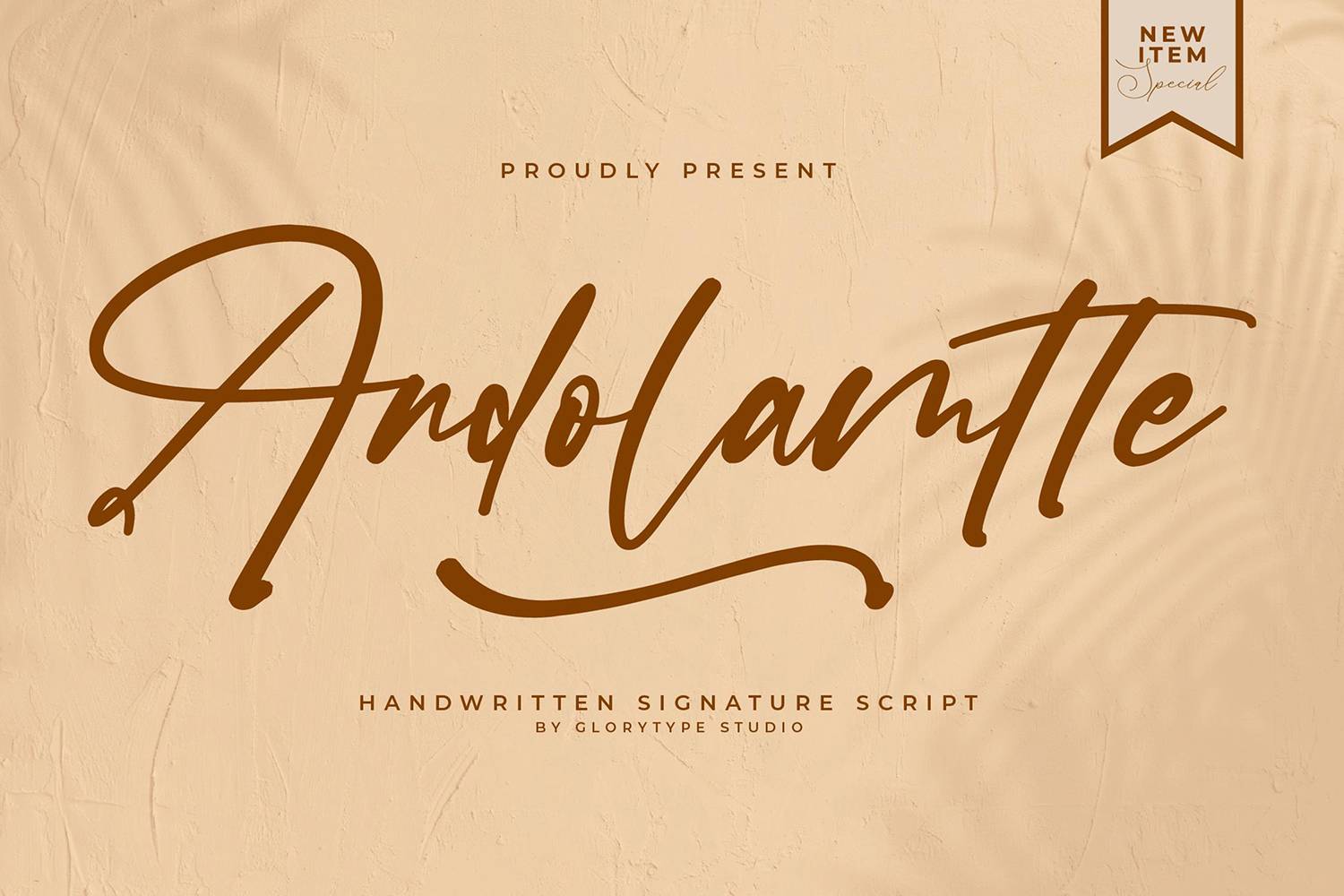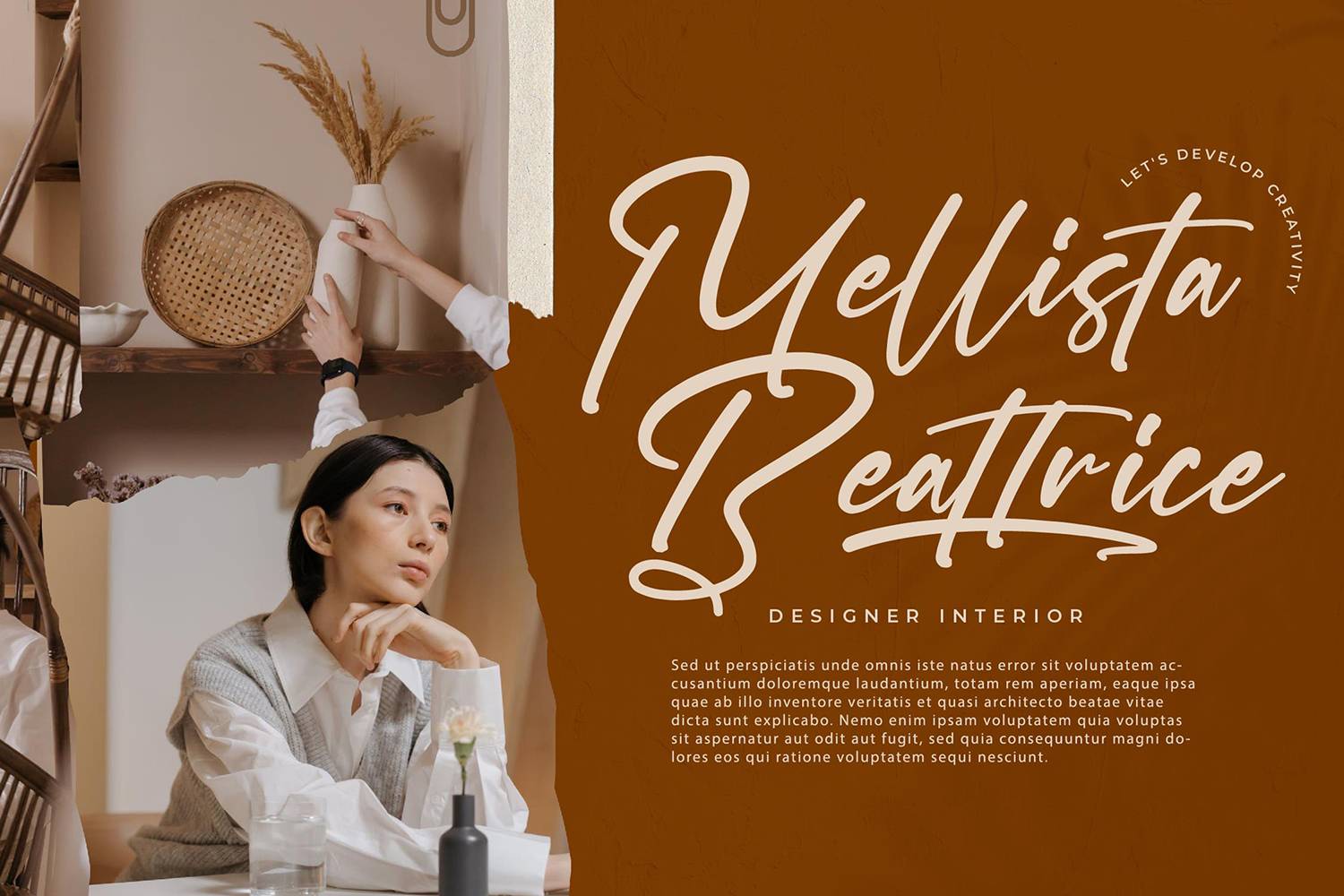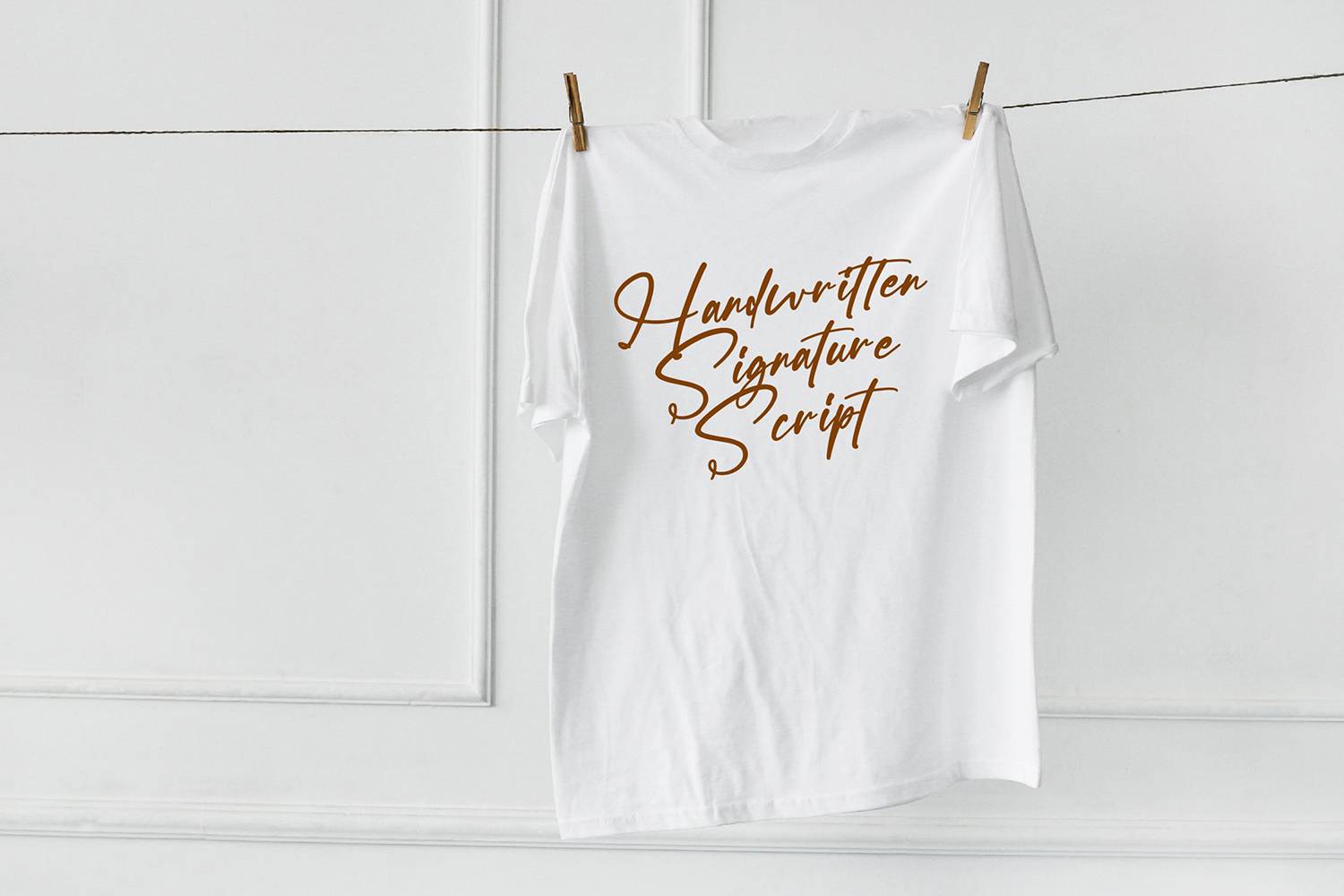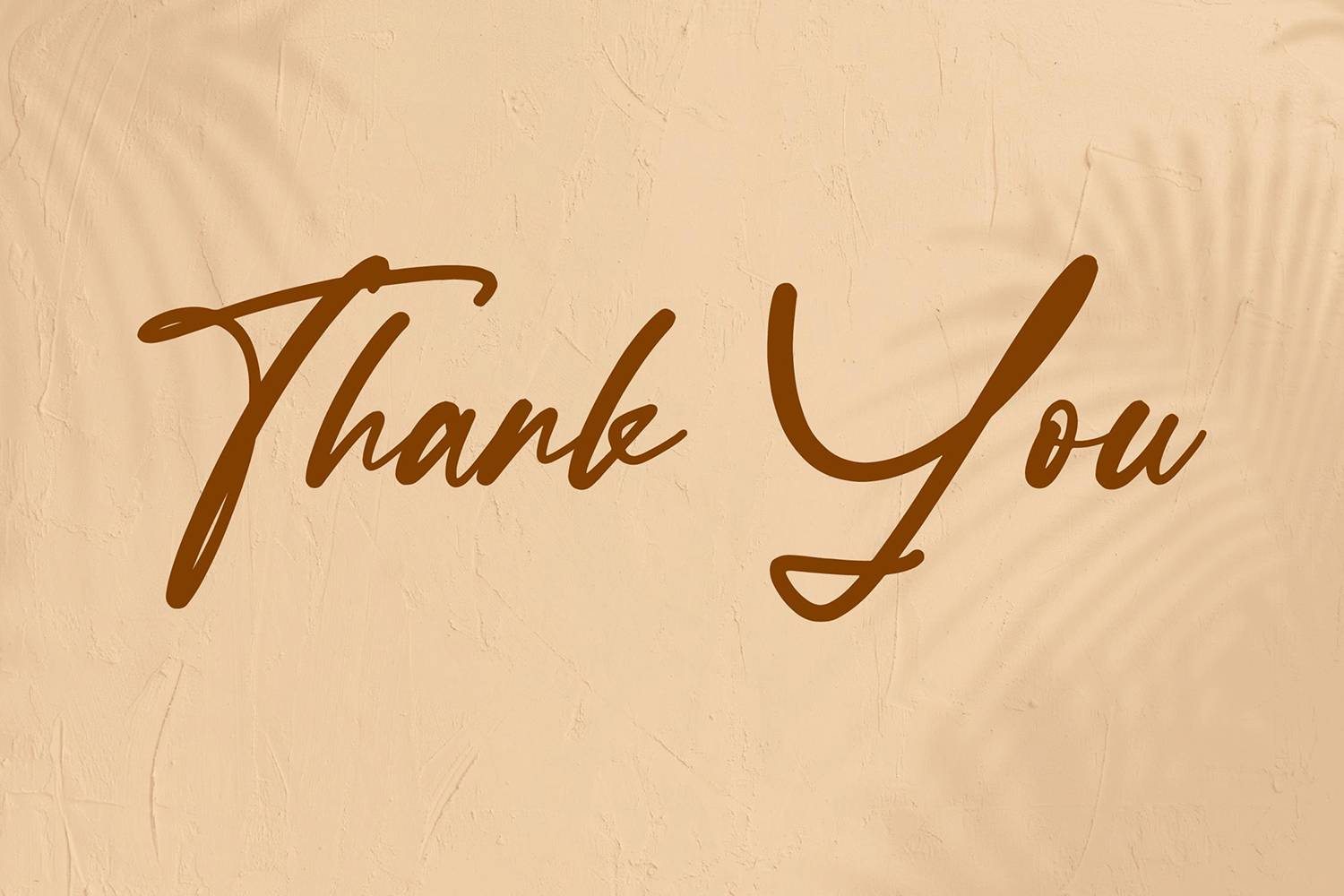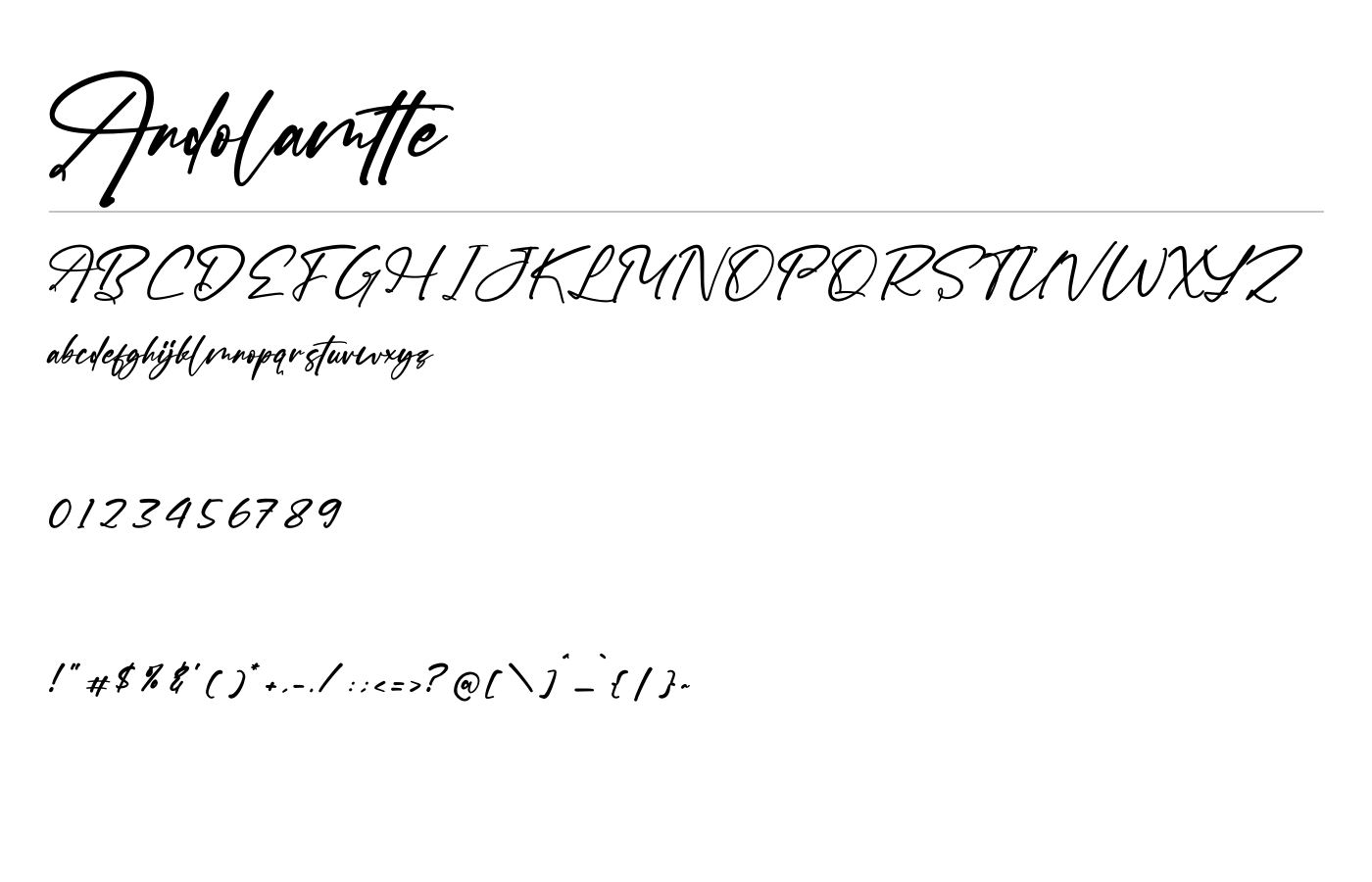
Andolamtte is a graceful script font that combines elegance with a handwritten charm, featuring fluid strokes and a slightly condensed style that gives it a sophisticated yet approachable feel. Its varied stroke thickness and delicate curves make it ideal for creative branding, invitations, and stylish headlines, lending a personal and refined touch to any design. This font works best where a natural, elegant impression is desired, such as in fashion, luxury, or artistic projects.
Andolamtte Font
About Andolamtte Font